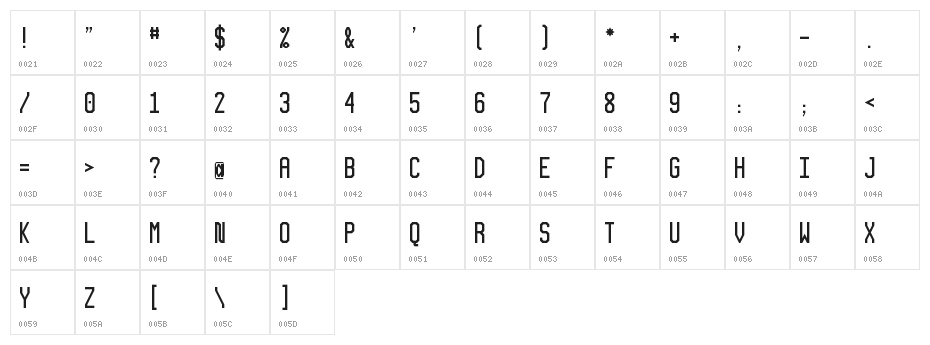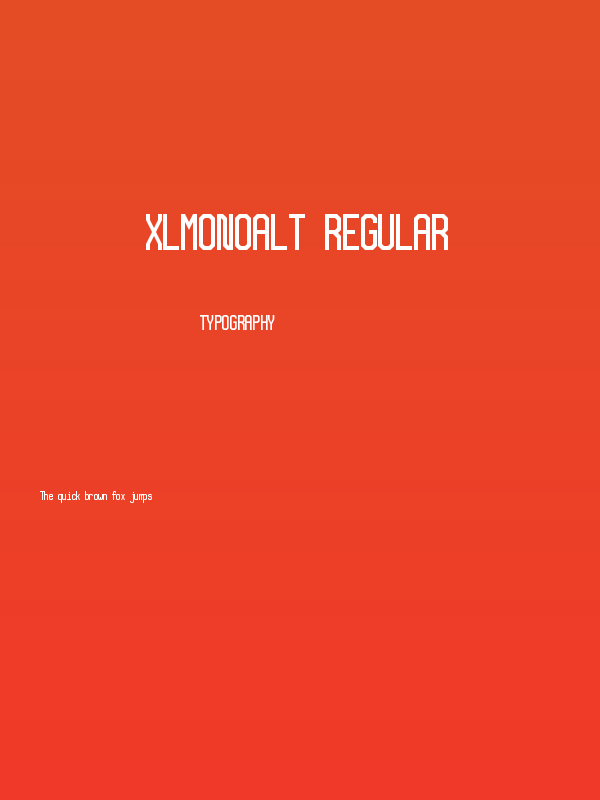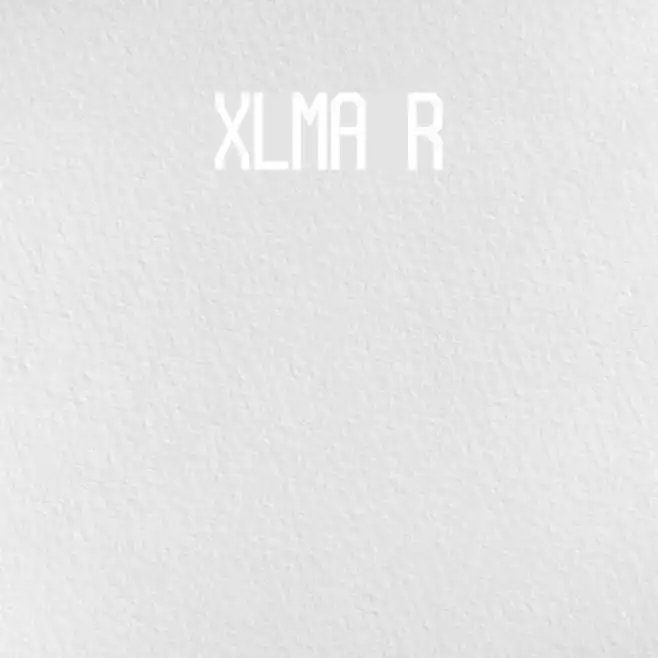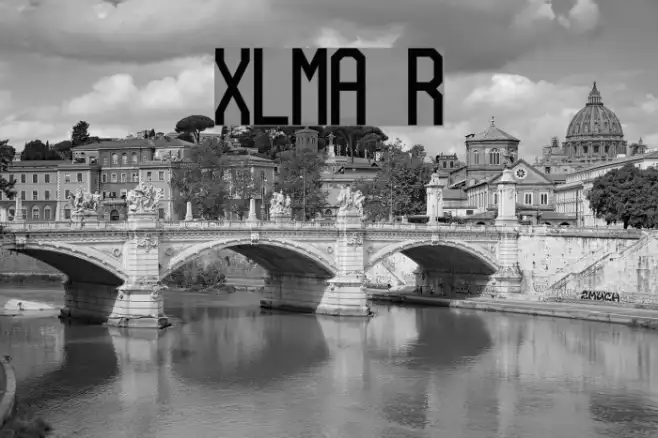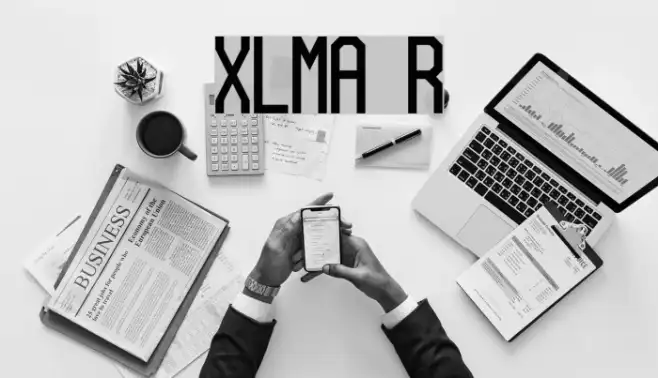
XLMonoAlt Regular Font
XLMonoAlt Regular Description
This font features a monospaced design with a modern and technical appearance. The characters are uniformly spaced, providing a clean and organized look. The uppercase letters are bold and structured, while the lowercase letters maintain a consistent height and width, enhancing readability. The numerals are distinct and clear, making them suitable for data presentation. Special characters are well-defined, adding versatility for various applications. The overall style is geometric with a slight industrial feel, making it ideal for coding, technical documents, and design projects that require precision and clarity.
| Use Case | Coding, Technical documents, Data presentation |
| Proposed Projects | Ideal for coding, technical documents, data presentation, and design projects requiring precision. |